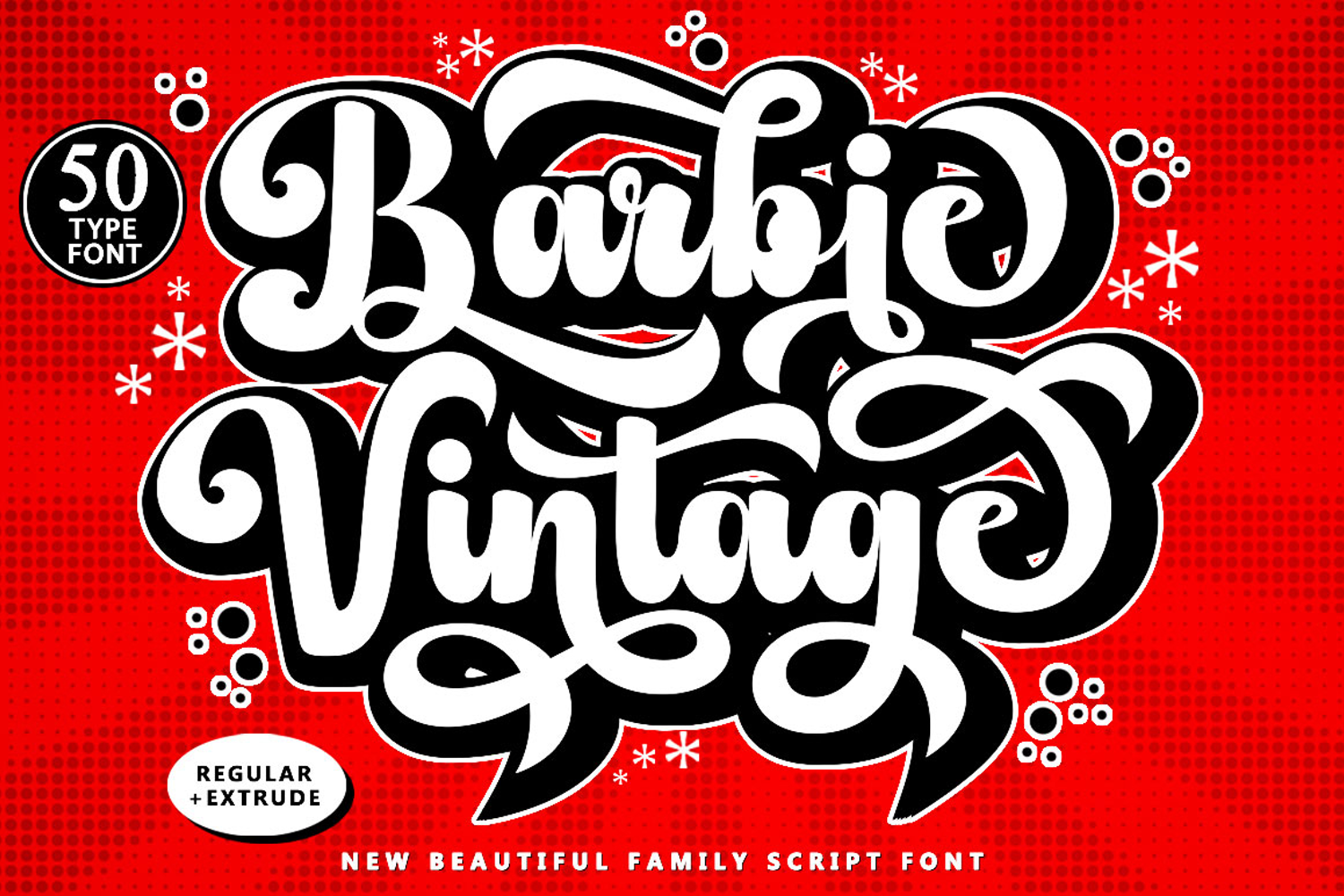
Barbie Vintage - Family Font In 50 Type
Barbie Vintage Family font is a modern retro script font with a classic and elegant touch. It's bold, confident, and dynamic, adding a nostalgic character to your designs.
This retro style is perfect for various formal uses such as invitations, labels, restaurant menus, logos, fashion, makeup, stationery, novels, magazines, books, greeting/wedding cards, packaging, labels, or various types of advertising, and you're sure to impress your audience. This font is PUA-encoded, meaning you can easily access all glyphs and swashes!
- Contains 50 New Typeface Fonts.
- Uppercase & lowercase
- Numbers & punctuation
- Alternate characters
- Swashes
- PUA-encoded